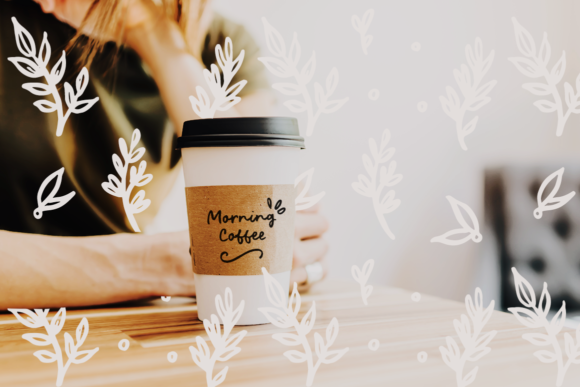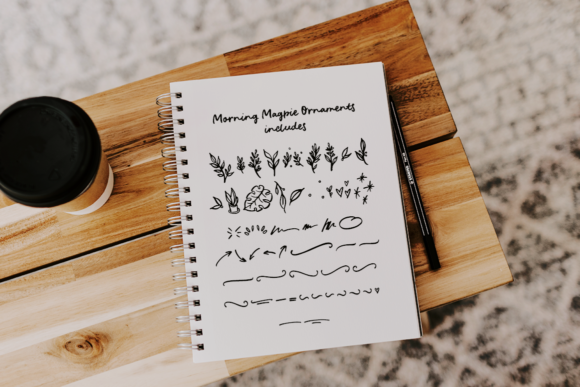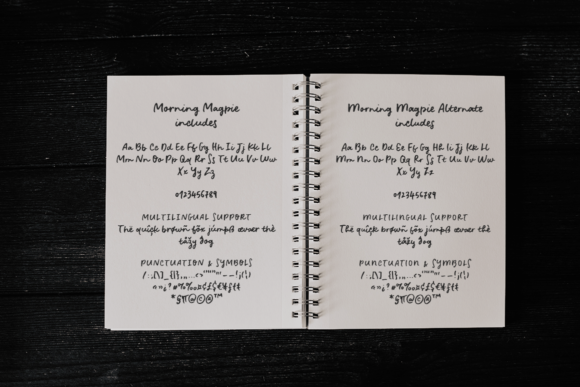
Introduction to Morning Magpie Font
Morning Magpie is a sweet, delicate and costomizable handwritten font.
It looks neat on invitations, thank you cards, quotes, greeting cards, logos, business cards and every other design which needs a handwritten touch .
Why Choose Morning Magpie Font?
Morning Magpie Font offers exceptional quality and versatility, making it a valuable addition to your design toolkit. Whether you’re creating for personal projects or commercial use, Morning Magpie Font delivers professional results.